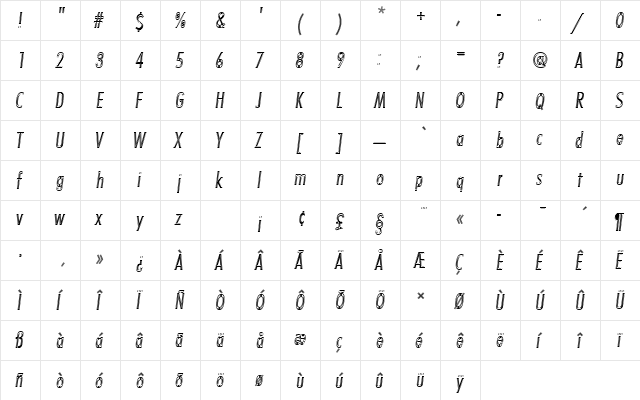
FuturaTLigConOblIn1 Regular
Design Context for FuturaTLigConOblIn1 Typeface
FuturaTLigConOblIn1 channels digital-age aesthetics through its sharp, structured letterforms — ideal for brands that want to signal innovation.
Pro Tip: Use FuturaTLigConOblIn1 in combination with a neutral sans for body text. Let it define the brand voice in headlines while keeping reading comfortable elsewhere.